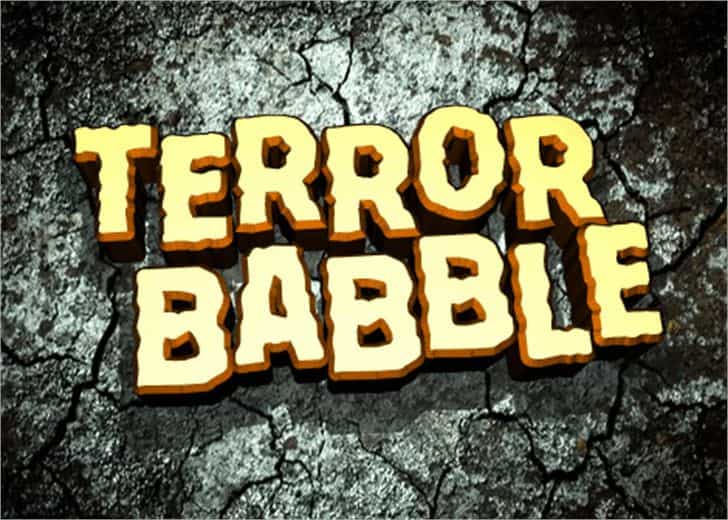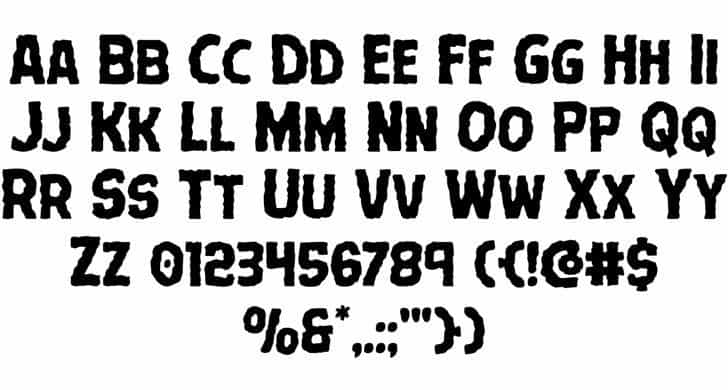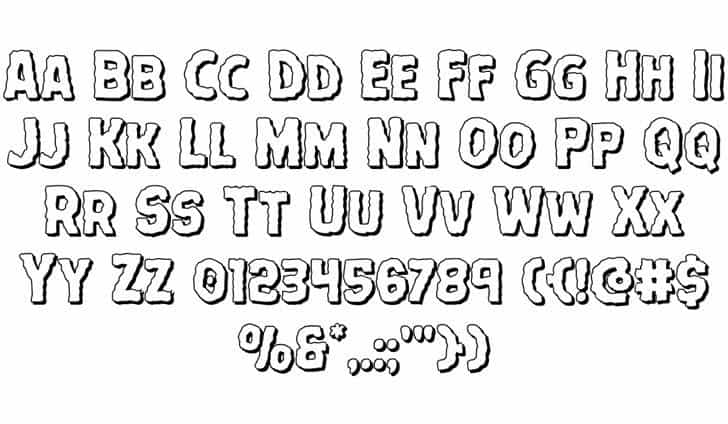
This font comes with the following 26 versions: Among them it has some of the styles as Regular, Italic, Leftalic, Condensed, Condensed Italic, Expanded, Expanded Italic, Bold, Bold Italic, 3D, 3D Italic,Rotated, Rotated 2, Staggered, Staggered Italic, Staggered Rotalic, Mangled, Mangled Italic, Engraved, Engr